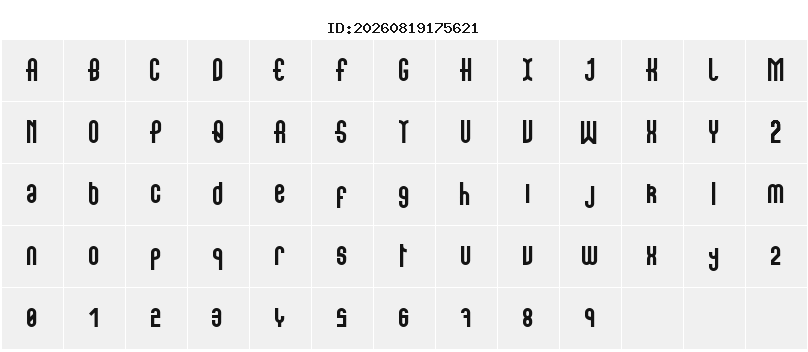
Showcase Preview
• Font Name: Showcase
• Full Font Name: Showcase
• Designer: Joshua Brooks
About Showcase.ttf
Showcase.ttf is a modern, elegant sans-serif font designed for ultimate readability and visual harmony. Perfect for branding, headlines, web design, and print materials.